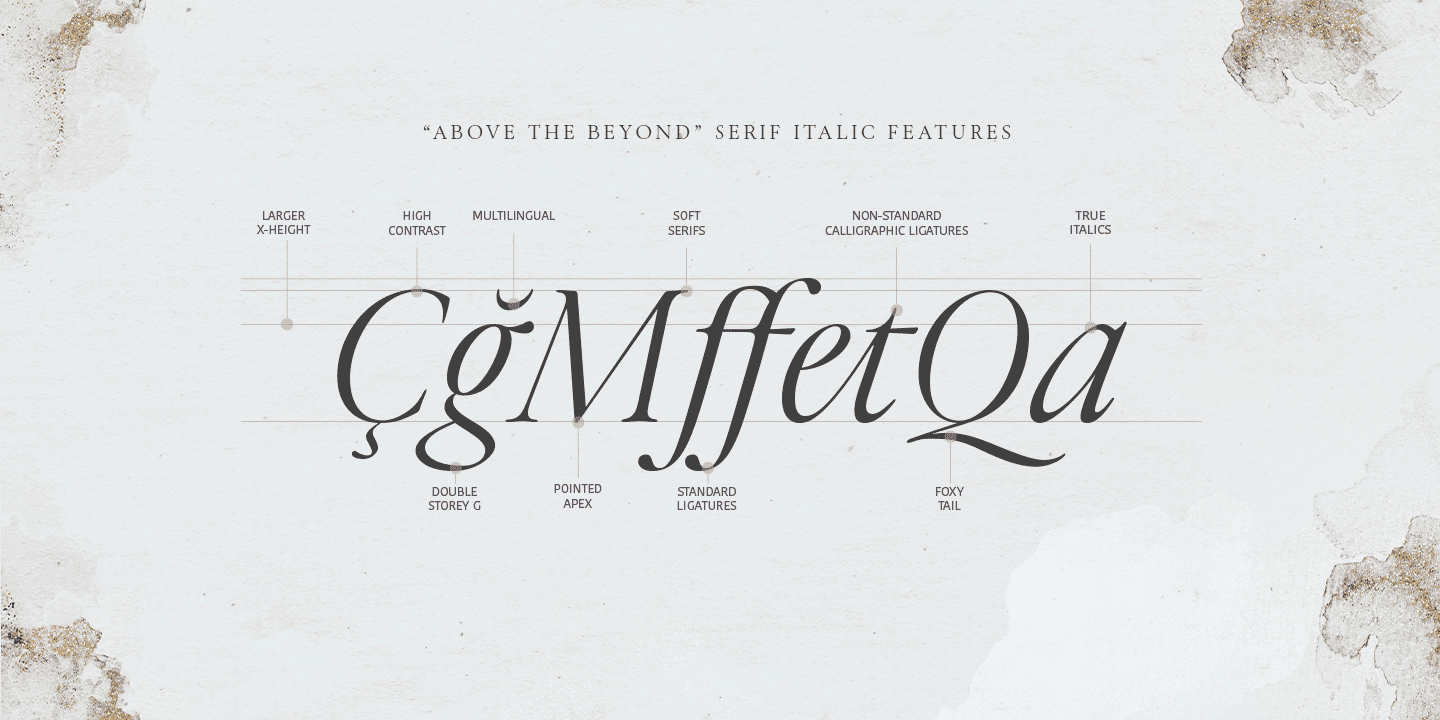
Above The Beyond Font
Above The Beyond Font - Web above the beyond font. The serif comes in two styles. Web explore above the beyond designed by elena genova at adobe fonts. A script typeface with 1 style, available from adobe fonts. It’s a font duo that combines classy serif and cute script fonts.